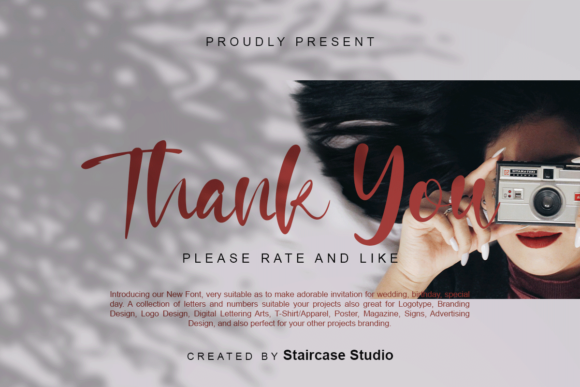
About Susan Mehta Font
Susan Mehta is a modern script typeface suitable for any of your projects such as logotype, branding design, logo design, digital lettering arts, T-shirt/apparel, poster, magazine, signs, advertising design, and many more!